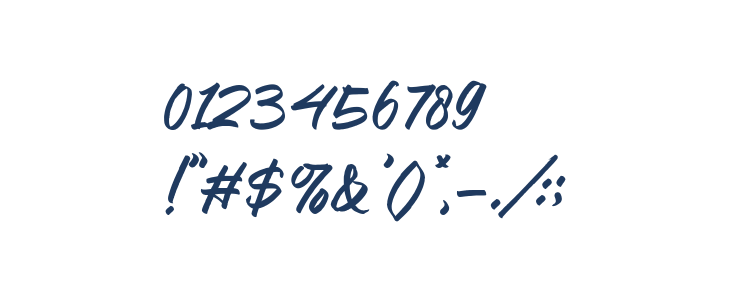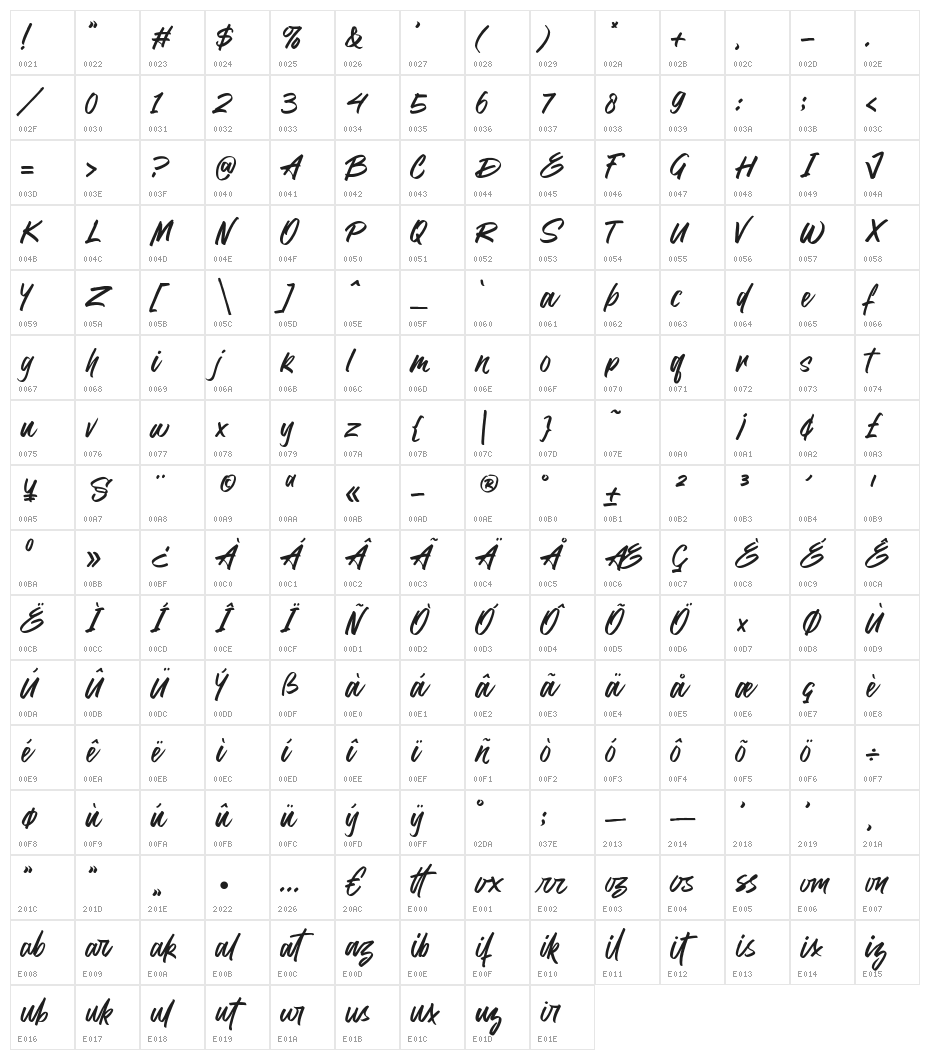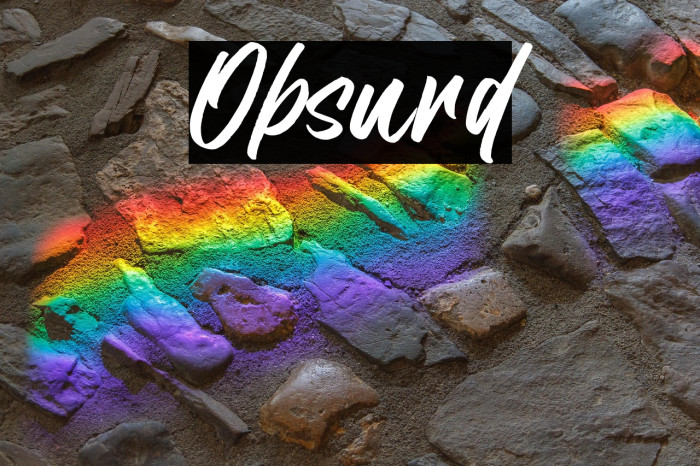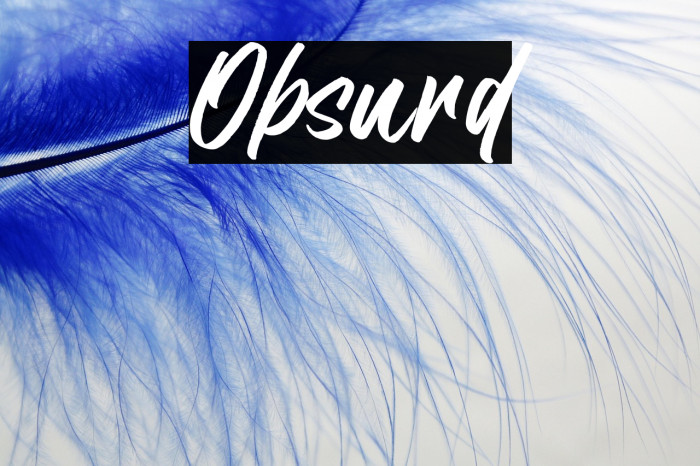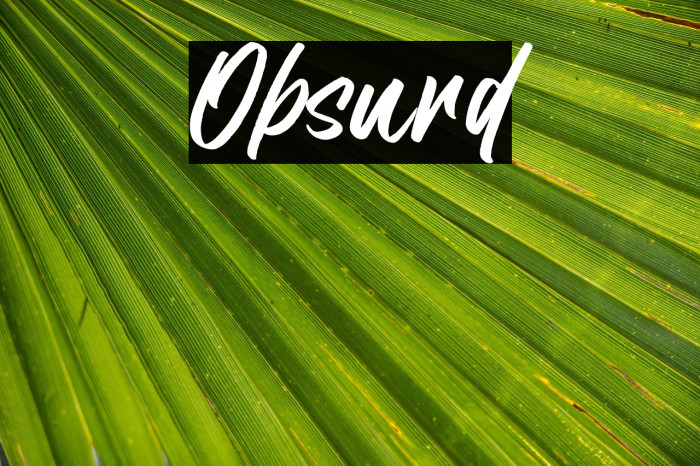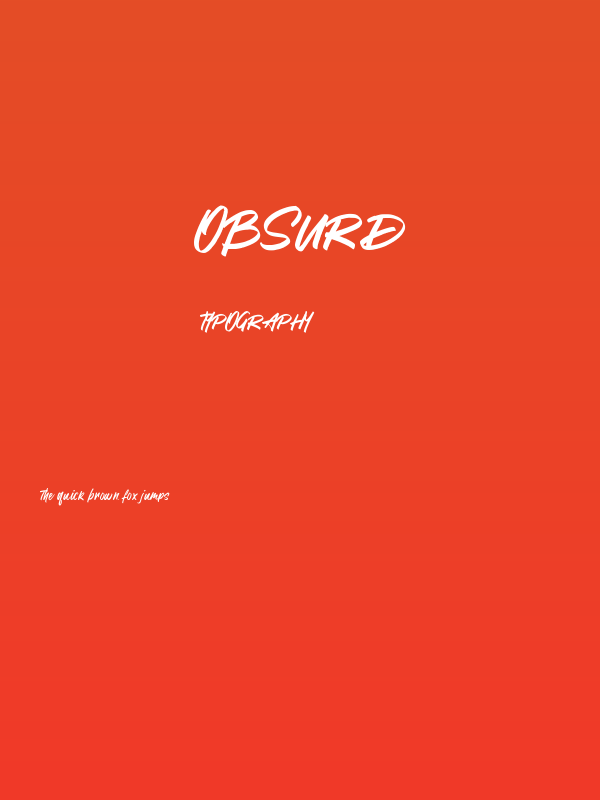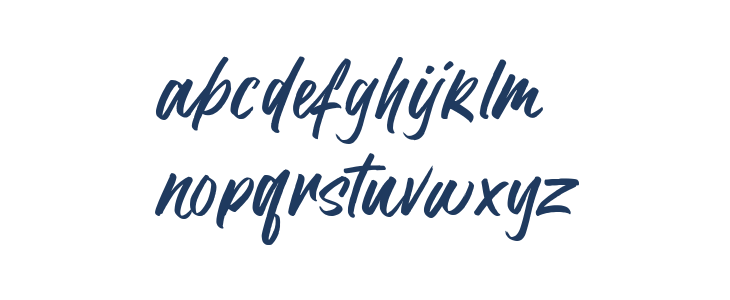
Obsurd Font
Obsurd Description
This font features a bold, energetic script style with a hand-drawn appearance. The letters are connected in a fluid manner, giving it a dynamic and lively feel. The uppercase letters are slightly larger and more pronounced, while the lowercase letters maintain a consistent flow. The numbers and special characters are designed to match the overall aesthetic, ensuring a cohesive look. The strokes are thick and consistent, providing a strong visual impact. This font is ideal for projects that require a personal touch or a sense of movement and creativity.
| Use Case | Logos, Headlines, Posters |
| Proposed Projects | Ideal for branding, logos, posters, and creative projects that require a personal and lively touch. |